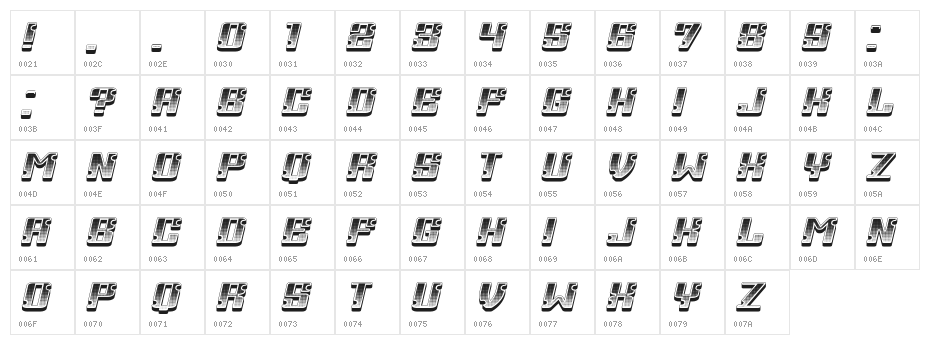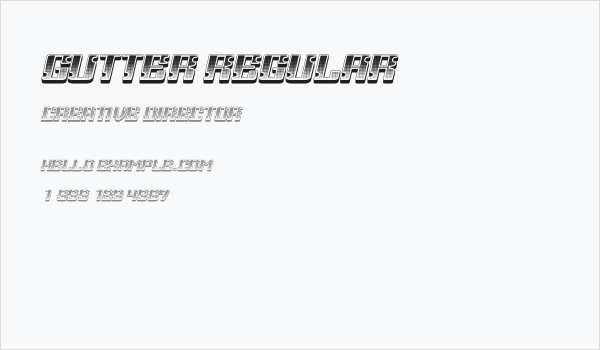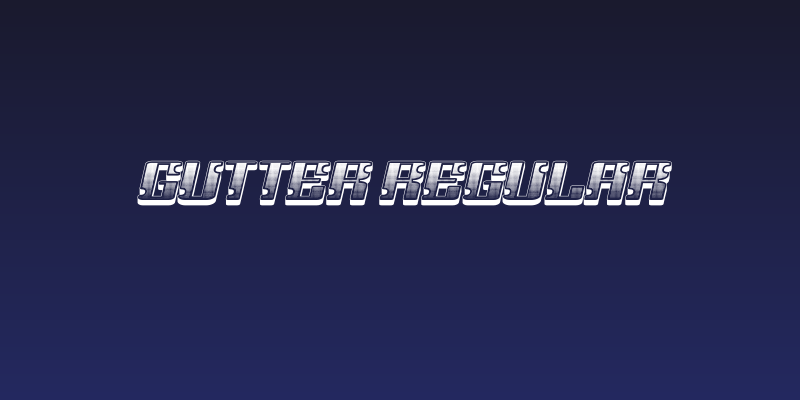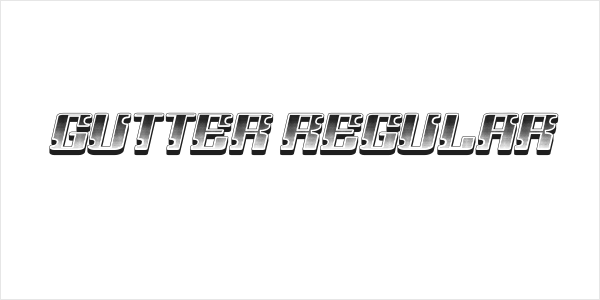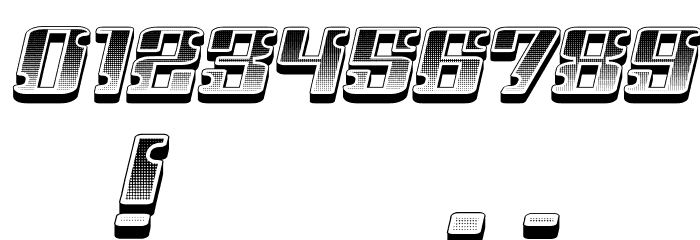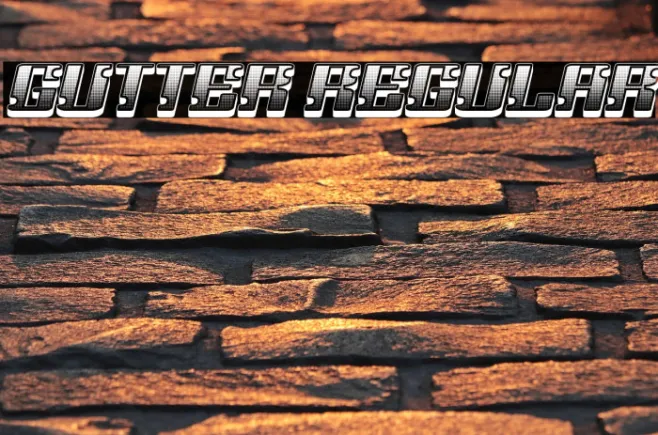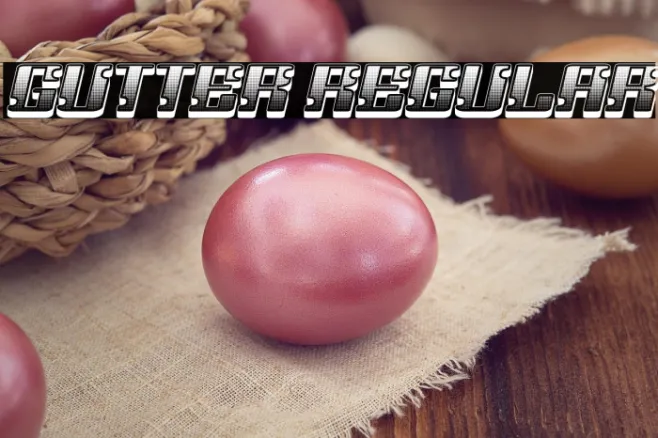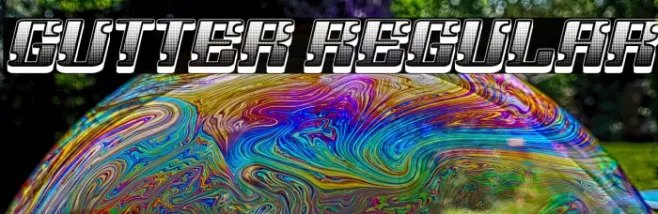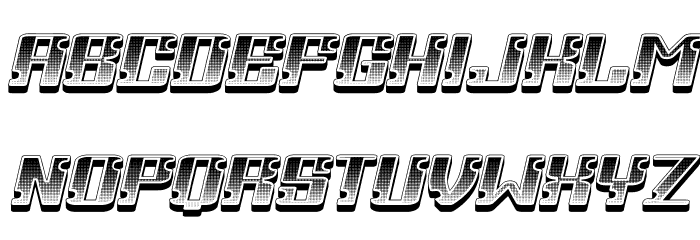
Gutter Regular Font
Gutter Regular Description
This font features a bold, three-dimensional appearance with a distinct shadow effect that gives it a dynamic and impactful look. The characters are uppercase and have a blocky, geometric style with rounded edges, adding a sense of modernity and playfulness. The internal pattern of dots within each character adds texture and depth, enhancing its visual appeal. The numbers and special characters maintain the same stylistic elements, ensuring consistency across all glyphs. This font is particularly suited for attention-grabbing designs due to its bold and decorative nature.